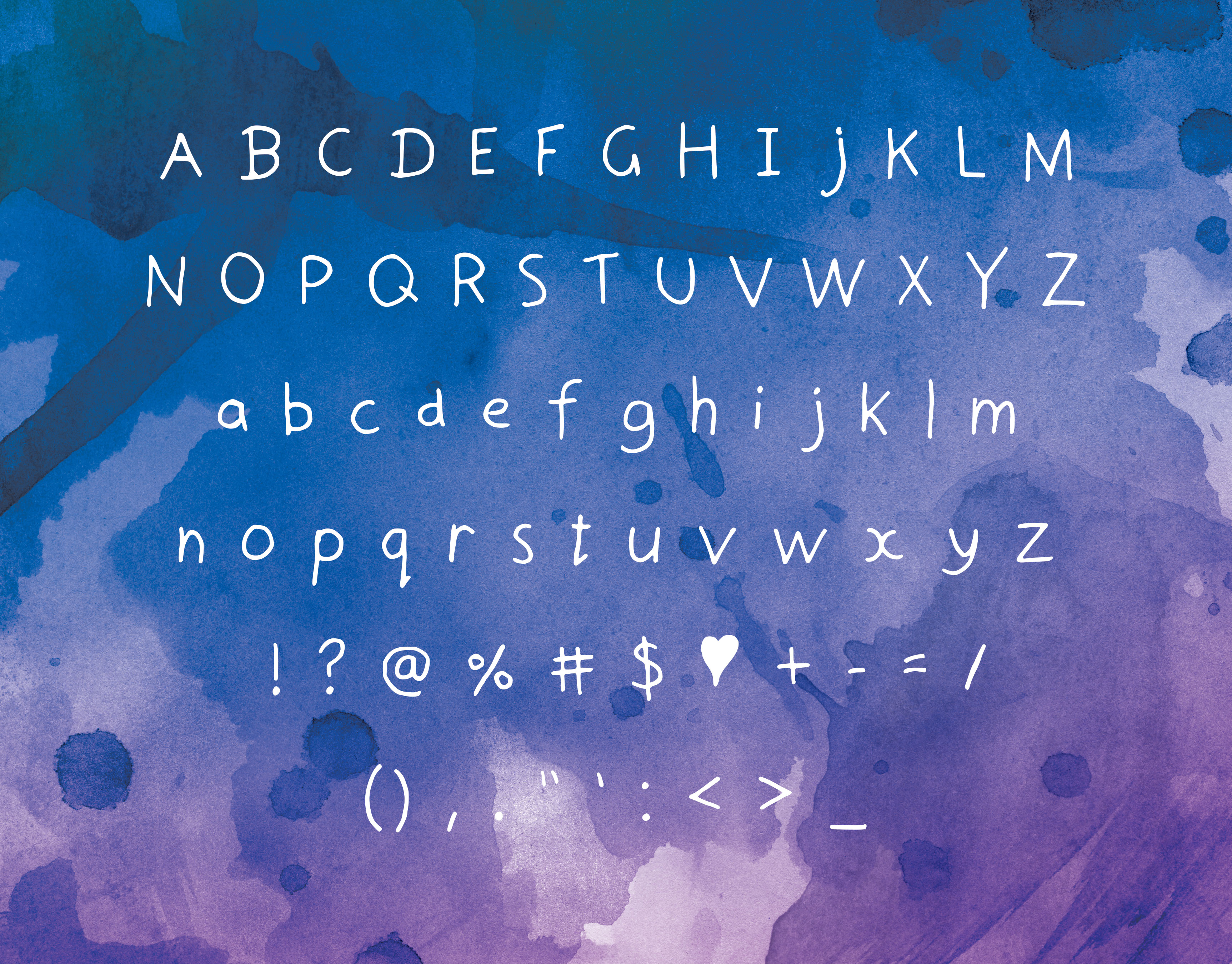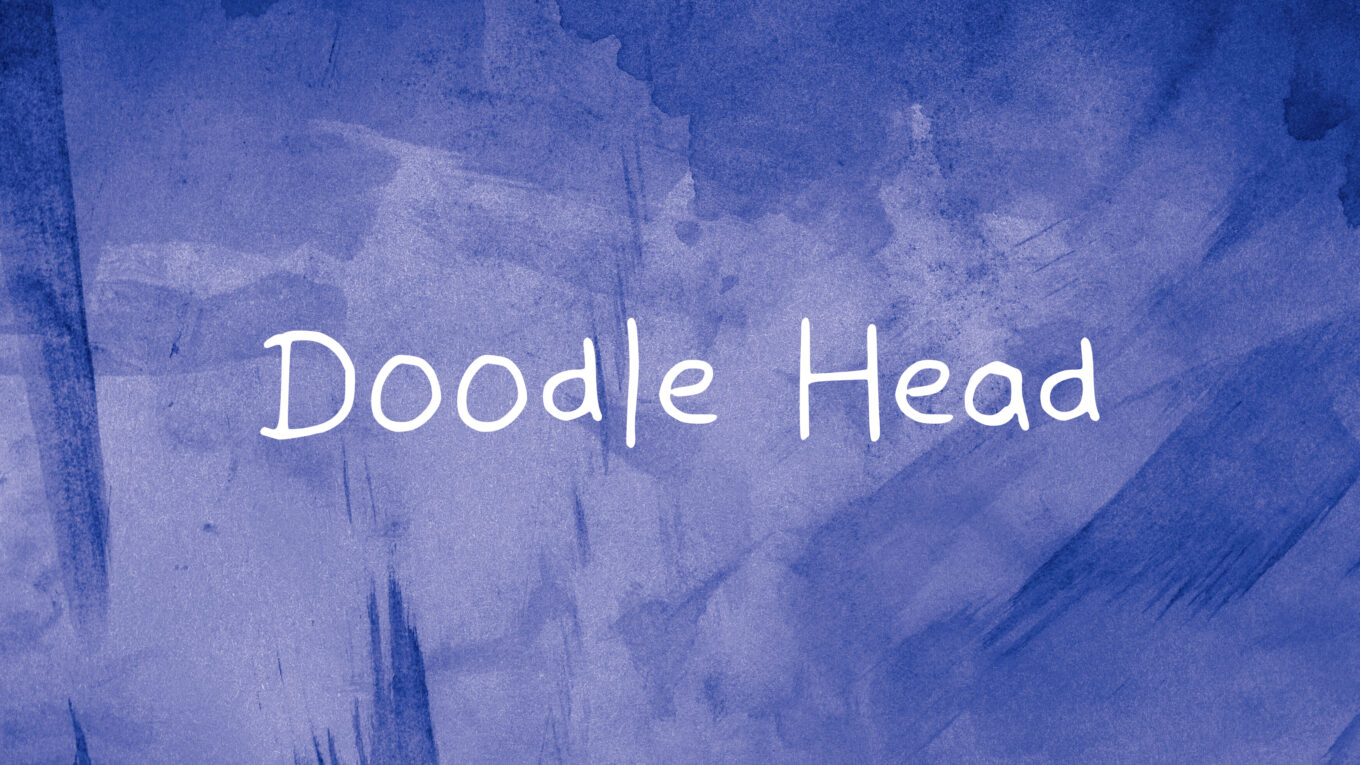
Doodle Head Font: A Fun and Readable Sans Serif Handwritten Font
Are you a designer or crafter looking for a unique and engaging font to add a personal touch to your projects? Look no further than the Doodle Head Font! This simple sans serif handwritten font is easy to read, tidy, and fun, making it perfect for a wide range of applications.
What is Doodle Head Font?
Doodle Head Font is a carefully crafted font that combines the simplicity of sans serif fonts with the playfulness of handwritten fonts. The result is a clean and modern font that is both easy to read and visually appealing. The font includes basic punctuation, making it suitable for use in a variety of contexts, from digital designs to print materials.
Key Features of Doodle Head Font
- Simple sans serif design: The Doodle Head Font features a clean and minimalist design that makes it easy to read and versatile for use in various contexts.
- Handwritten feel: Despite its simplicity, the font has a playful and handwritten feel that adds a personal touch to any project.
- Easy to read: The font is optimized for readability, making it perfect for use in body text, headings, and titles.
- Tidy and organized: The font is carefully crafted to ensure that it looks tidy and organized, even at smaller font sizes.
- Fun and playful: The Doodle Head Font has a fun and playful personality that makes it perfect for use in creative projects, such as crafts, illustrations, and designs.
- Includes basic punctuation: The font includes a range of basic punctuation marks, making it suitable for use in a variety of contexts.
Uses for Doodle Head Font
The Doodle Head Font is a versatile font that can be used in a wide range of applications, including:
- Digital designs: Use the font in digital designs, such as social media graphics, blog posts, and website headers.
- Print materials: The font is perfect for use in print materials, such as brochures, flyers, and business cards.
- Crafts and illustrations: The font’s playful and handwritten feel makes it perfect for use in crafts and illustrations, such as hand-lettering and journaling.
- Signage and displays: Use the font in signage and displays, such as store signs, menus, and posters.
Why Choose Doodle Head Font?
There are many fonts available that claim to be easy to read and visually appealing, but the Doodle Head Font stands out from the crowd. Here are just a few reasons why:
- Unique personality: The font has a unique and playful personality that sets it apart from more traditional fonts.
- High-quality design: The font is carefully crafted to ensure that it looks great in a variety of contexts.
- Versatility: The font can be used in a wide range of applications, from digital designs to print materials.
- Ease of use: The font is easy to read and use, making it perfect for designers and crafters of all skill levels.
If you’re looking for a fun and readable sans serif handwritten font, look no further than the Doodle Head Font. With its simple design, playful personality, and versatility, this font is perfect for a wide range of applications. Whether you’re a designer or crafter, the Doodle Head Font is sure to become a favorite in your toolkit.